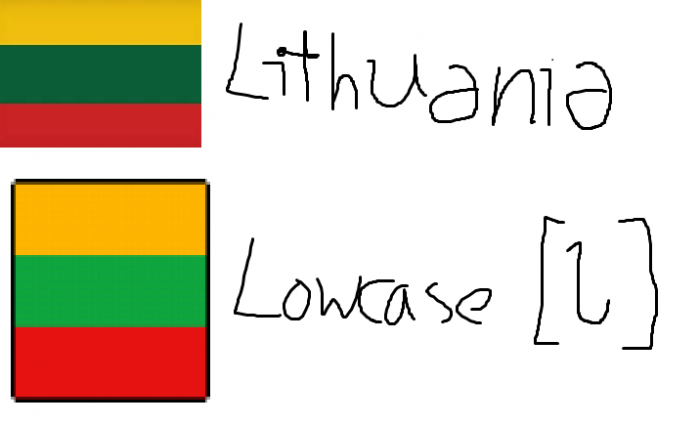
• [Aa]: Argentina, Australia
[Bb]: Brazil, Bangladesh
[Cc]: China, Canada
[Dd]: Germany, Denmark
[Ee]: Spain, Ethiopia
[Ff]: France, Finland
[Gg]: Greece, Ghana
[Hh]: Hungary, India
[Ii]: Italy, Indonesia
[Jj]: Japan, Jamaica
[Kk]: South Korea, Kenya
[Ll]: Latvia, Lithuania
[Mm]: Mexico, Malaysia
[Nn]: Norway, Netherlands
[Oo]: Oman, Austria
[Pp]: Poland, Pakistan
[Qq]: Qatar, Guatemala
[Rr]: Russia, Romania
[Ss]: Sudan, Saudi Arabia
[Tt]: Turkey, Thailand
[Uu]: United States, Ukraine
[Vv]: Venezuela, Vietnam
[Ww]: Belarus, Sweden
[Xx]: United Kingdom, Israel
[Yy]: Yemen, Iceland
[Zz]: Zambia, Zimbabwe
[0]: South Africa, [1]: Estonia, [2]: Nigeria, [3]: Ireland, [4]: Czech Republic, [5]: United Arab Emirates, [6]: Democratic Republic of the Congo, [7]: Philipines, [8]: Iran, [9]: New-Zealand
[.]: Switzerland, [,]: Nepal
[?]: Cuba, [!]: Myanmar
[@]: Madagascar, [_]: Kazakhstan, [#]: Portugal, [*]: Colombia
[&]: Egypt, [%]: Peru, [$]: Somalia, [(]: Morocco, [)]: Croatia
[+]: Georgia, [-]: Serbia, [<]: Syria, [=]: Algeria, [>]: Chile
[/]: Guinea, [|]: Bulgaria, [\]: Mali, [:]: Belgium, [;]: Cameroon, [~]: Uzbekistan
[[]: Tunisia, []]: Slovakia, [^]: Afghanistan, [{]: Republic of the Congo, [}]: Uganda, [`]: North-Korea
Fantastic pixel flags!! Congrats on the well deserved TP! 10+❤️!
I wonder how you managed to add a ninth layer to the font when the limit is eight?
@BWM: where did you find color 9? did you count white?
@Sychoff The color white was included in my count.
Please add Ukraine, Israel, and more!
Yes! another top pick! :) thank you all. I will definitely add more
@bwm:
can there be a dotted brick in a colour and the background in another?
yes good idea I dotted the Bengali flag for a more accurate green color
The Switzerland and UAE flags are probably possible with the colors you have, but I am not sure about Saudi Arabia's flag as it is so detailed where there is text given the size of the squares in the font
will you add scandinavian flagfs
Portugal for lowercase p!
pakistan got ift first
AYO THIS IS SO COOL
Quebec for lowercase q!
Definetly a top pick! :)
@ptles
quebec is a canadian state.
I wonder if there are plans to do every single country and state flag that exists?
what's iphone land? does it exist
Comment by digitalio 16th january 2024
As someone from the UK, I approve
Comment by Z3ddy2023 17th january 2024
TURKEY MENTIONED T T T T T T AUUUUUUUUU
Comment by cigerimdunyadakalan 19th january 2024
Great work!
Comment by WCS_DoesStuff2025 (Ultronimation2023) 28th january 2024
Good job!
Comment by WCS_DoesStuff2025 (Ultronimation2023) 28th january 2024
Awesome my country is in here! [I]
Comment by WCS_DoesStuff2025 (Ultronimation2023) 28th january 2024
Ugh wrong thing I meant [i]
Comment by WCS_DoesStuff2025 (Ultronimation2023) 28th january 2024
Please add the Philippines!!
Comment by Heaven Castro 20th february 2024
You can add more flags.
Comment by WCS_DoesStuff2025 (Ultronimation2023) 8th march 2024
Make it better so use region indicator symbols instead.
Comment by SFBTEF23GotCatrinityFont 9th april 2024
Hello, @SFBTEF23GotCatrinityFont ,
I'm afraid that in FontStruct, it is not possible to make characters affect others.
Comment by Europe2048 10th april 2024
@Europe2048 That is until Meek adds support for OpenType features in FontStruct. For the time being, one should use Glyphs (Mac Only), FontLab (Windows and Mac), or FontForge (Windows, Mac, and Linux) to implement the features.
Comment by Bryndan W. Meyerholt (BWM) 10th april 2024
@Bryndan W. Meyerholt (BWM) Do you want Rob Meek to add support for Open Type features?
Comment by SFBTEF23GotCatrinityFont 19th april 2024
@SFBTEF23GotCatrinityFont That would be a great thing, but the question is How will Meek implement it?
Comment by Bryndan W. Meyerholt (BWM) 19th april 2024
@Bryndan W. Meyerholt (BWM) , Yes right now!
Comment by SFBTEF23GotCatrinityFont 21st may 2024
abc
Comment by yavu 27th may 2024
@Europe2048 , When will Meek add OpenType ligatures & Unlimited custom encoding slots?
Comment by SFBTEF23GotCatrinityFont 28th may 2024
Philippines for #7
Comment by SFBTEF23GotCatrinityFont 28th may 2024
Fantastic,  Rainbow flag?
Comment by George Arnold (bufb) 9th june 2024
the lithuanian flag doesnt look like that u noob
Comment by ukaj 30th october 2024
@ukag mg
Comment by digitalio-2 11th november 2024
[#] for portugal
Comment by digitalio-2 20th november 2024
THIS IS THE LEAsT I EXPECTED
Comment by TypeworkingRudy 30th november 2024
i love geography. This is the best font on FontStruct yet in my opinion.
Comment by davilarichard683 16th january 2025
Wow thank you!
Comment by Luuk Mölders 20th march 2025
I Love This im you Fan! ❤️❤️❤️
Comment by anonymous-2552875 20th march 2025
maybe " for north korea
Comment by digitalio-2 6th july 2025
[%] for Chile
I live in 7
And I live in capital B!
I'm the Indonesian FontStructor, Thanks for making the font!
I live in 4
Did you already Czech in? *pa-dum-tss*
Comment by NewCurvenBig Tue, 3rd march